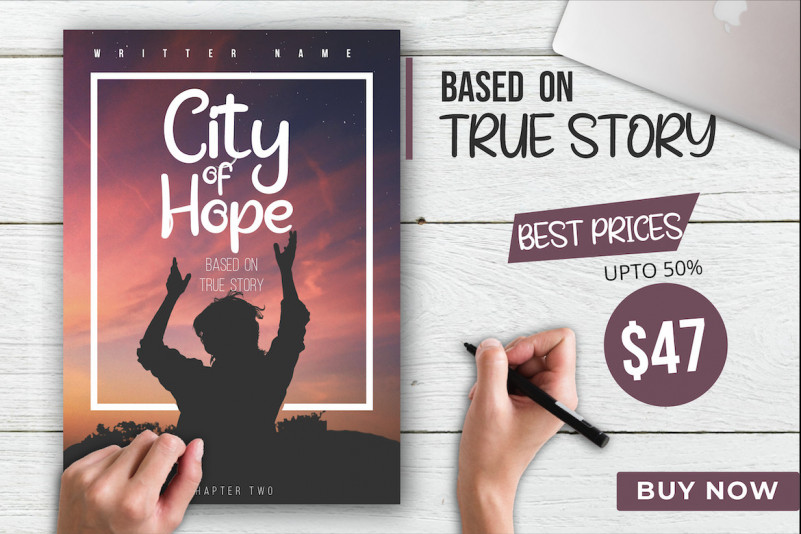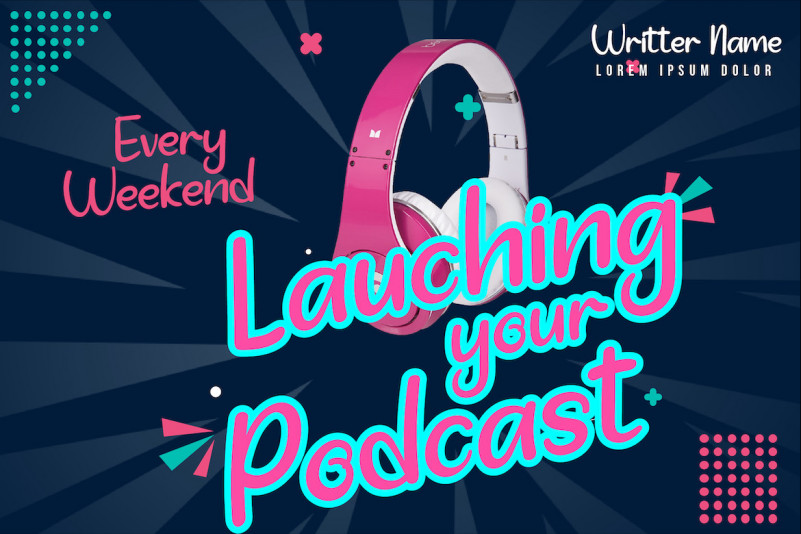
California Brush Font
California is a lovely and timeless handwritten font. It is the best choice for creating eye catching logos, branding and quotes. Every letter has a unique and beautiful touch, which will make your design come alive!